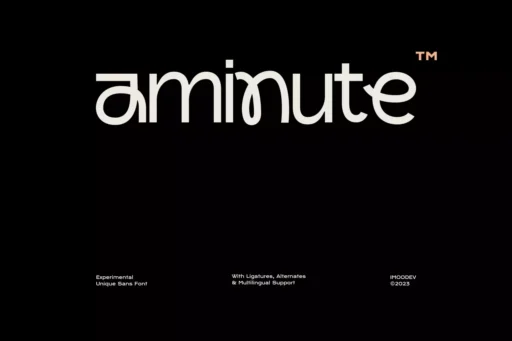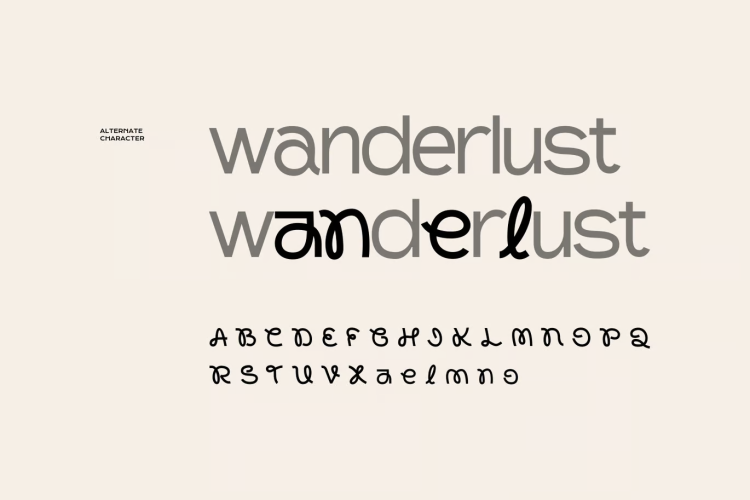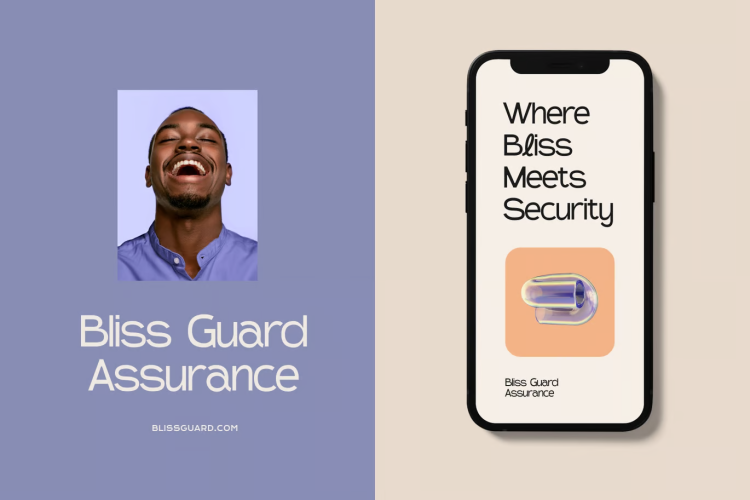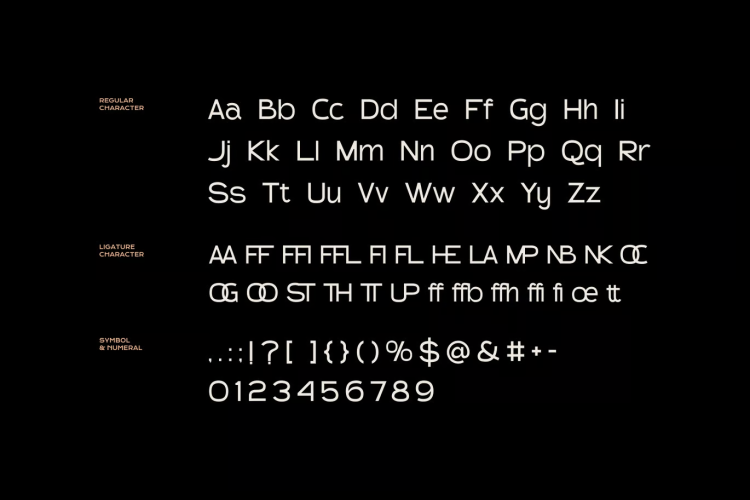
Aminute Font
Aminute is a experimental unique sans font that has smooth curves and a visual style a can embodies charm and elegance in every lettering, making your work look stunning and attractive.
This font can be used in both uppercase and lowercase for any project including display fonts for headings, logos, invitation designs, branding projects, book covers, magazine layouts, cards, packaging design, product mockups, mugs, posters, labels, editorials, art deco, and any type of advertising.
Aminute Font is a Sans Serif Fonts font that brings a professional and versatile look to your projects. Aminute is a experimental unique sans font that has smooth curves and a visual style a can embodies charm and elegance in every lettering, making your work look stunning and attractive.